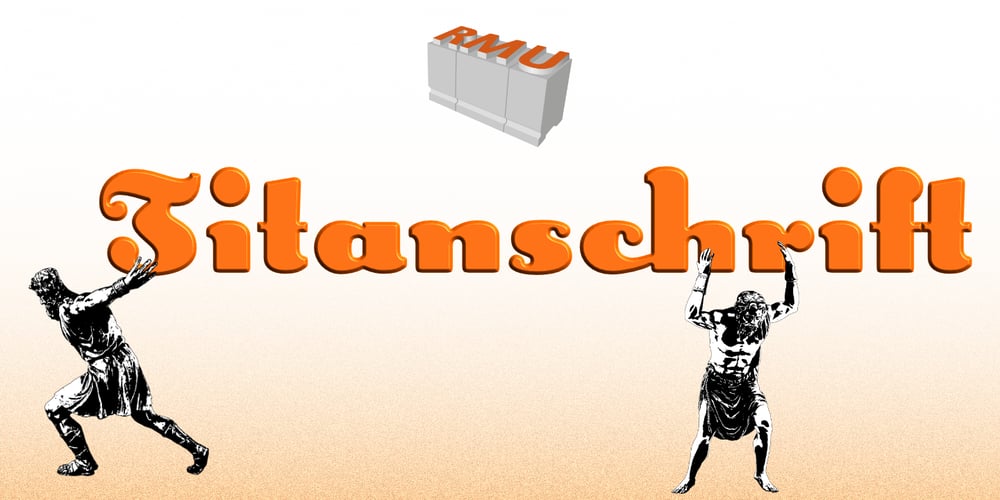
Titanschrift Font Family was designed by Ralph M. Unger and published by RMU. Titanschrift contains 1 styles and family package options. This is a revival of a Wagner & Schmidt font, released in the first quarter of the 20th century.